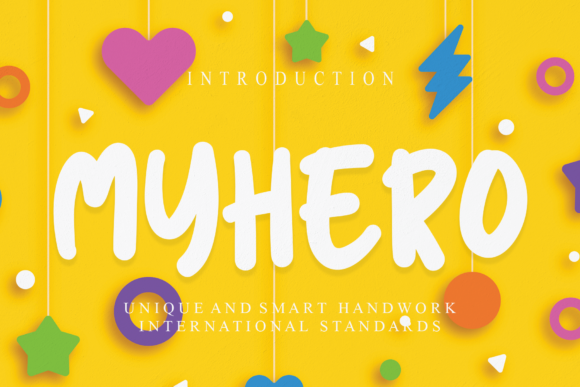
Introduce Myhero Font: A Jubilant and Effervescent Display Font
Welcome to the world of Myhero Font, a delightful and vivacious display font that exudes playfulness and authenticity. This charming font is perfect for adding a touch of whimsy and joy to any creative project. Whether you're designing wedding invitations, creating posters for school projects, or crafting logos for children's brands, Myhero Font is sure to captivate and inspire.
Myhero Font: A Playful Symphony of Characters
Step into a realm of boundless creativity with Myhero Font. Each character dances with a unique personality, adding a touch of magic to your designs. From the exuberant swirls of its uppercase letters to the adorable curves of its lowercase counterparts, Myhero Font brings a sense of delight and charm to every project.
But Myhero Font is more than just a collection of pretty letters. It's a versatile chameleon that can adapt to a wide range of designs. Its playful nature makes it perfect for children's books and educational materials. Its bubbly personality adds a touch of whimsy to personal branding and social media graphics. And its authentic flair gives a handmade touch to wedding invitations and greeting cards.
Myhero Font: Crafted with Care, Designed to Delight
Behind the cheerful facade of Myhero Font lies a story of meticulous craftsmanship. Created by the talented team at Misterletter.co, this font has been lovingly designed to deliver the perfect balance of playfulness and authenticity. Every curve, every stroke, and every detail has been carefully considered to create a font that is both visually appealing and easy to use.